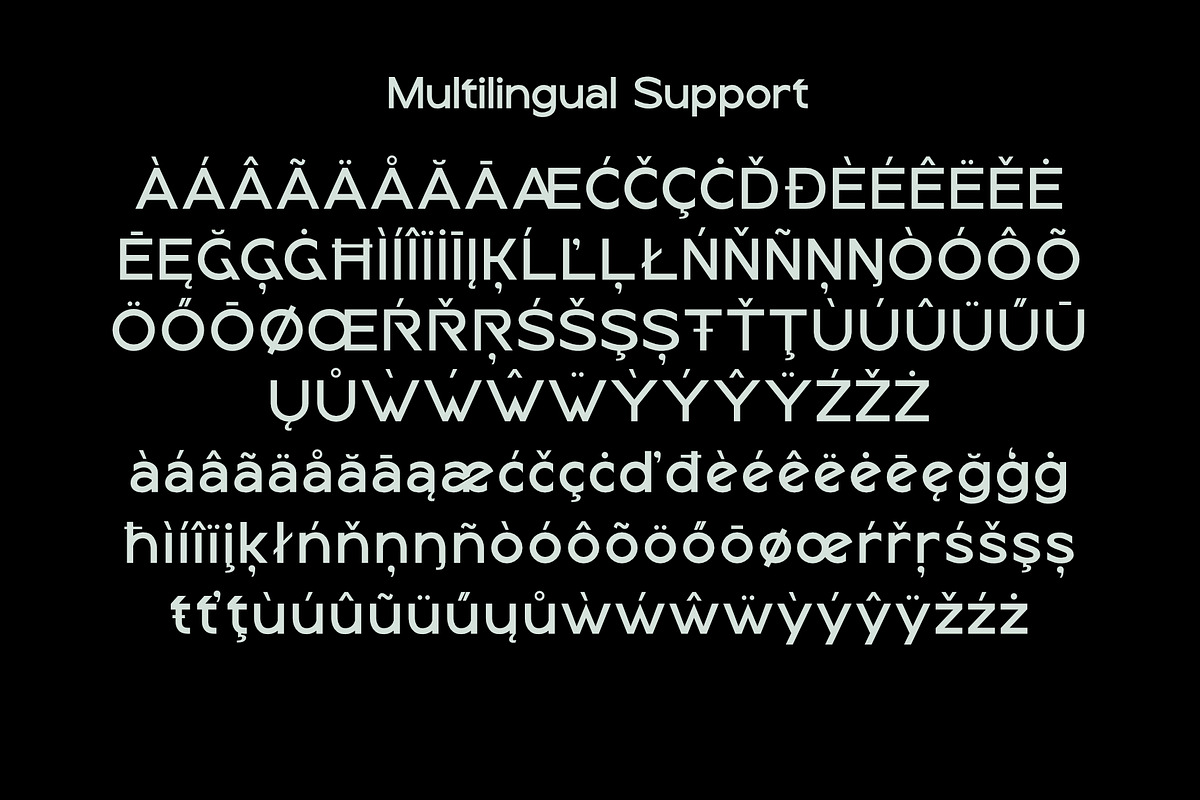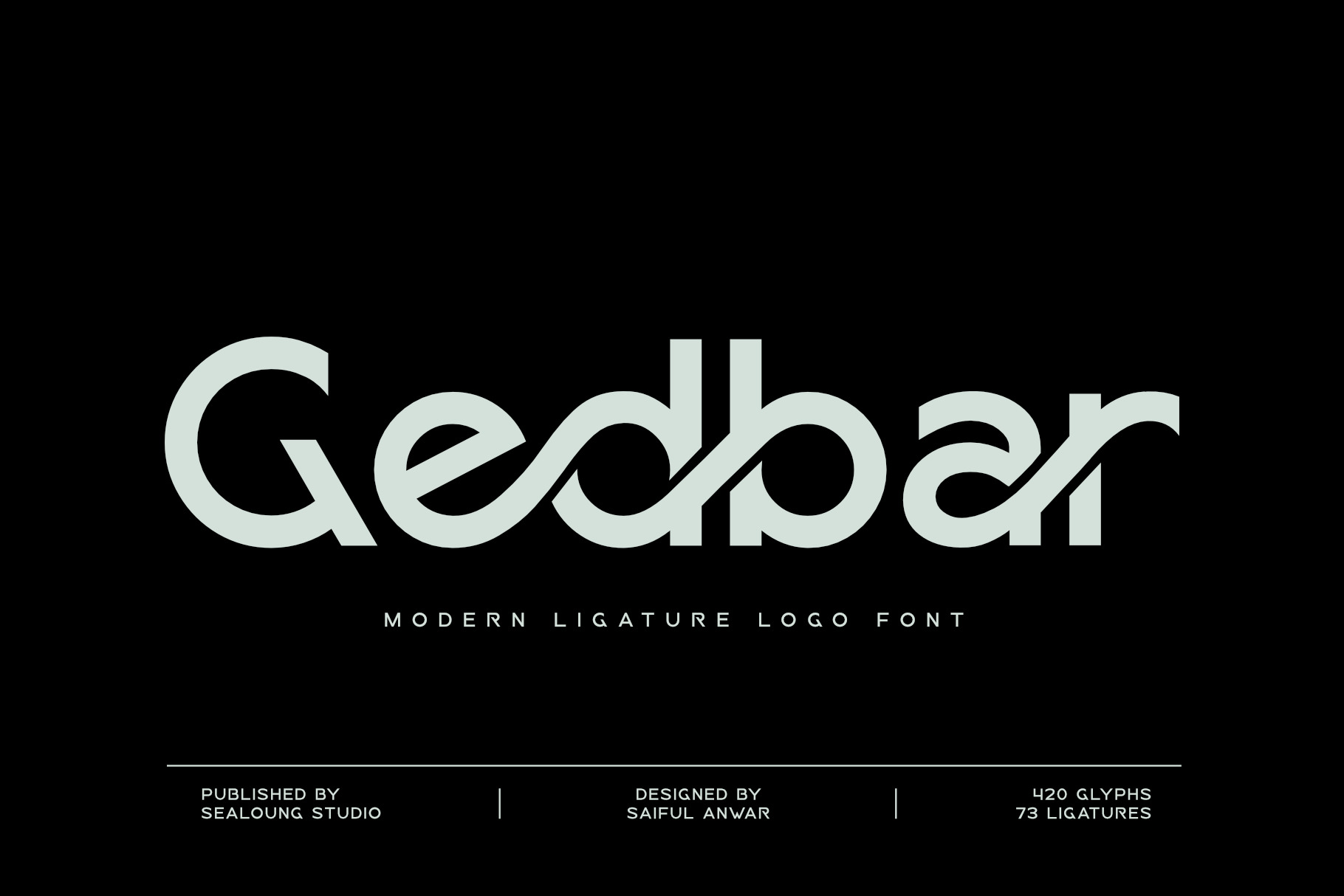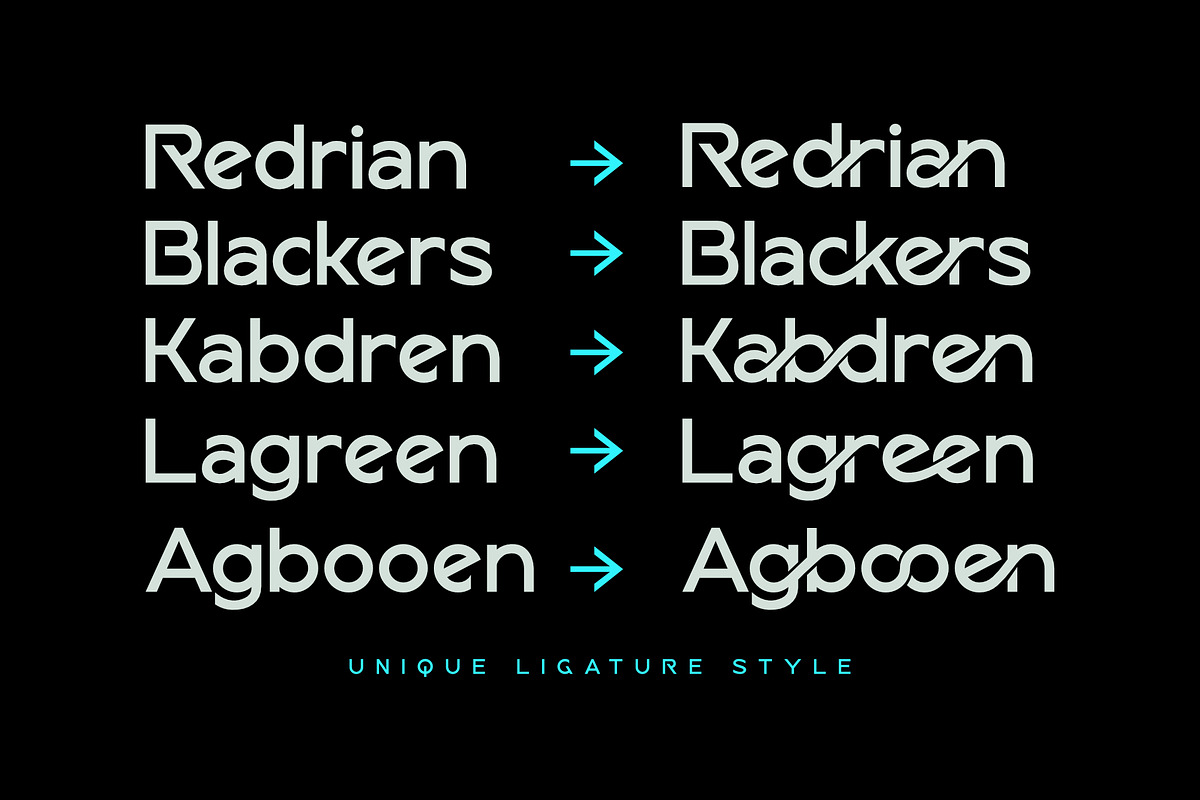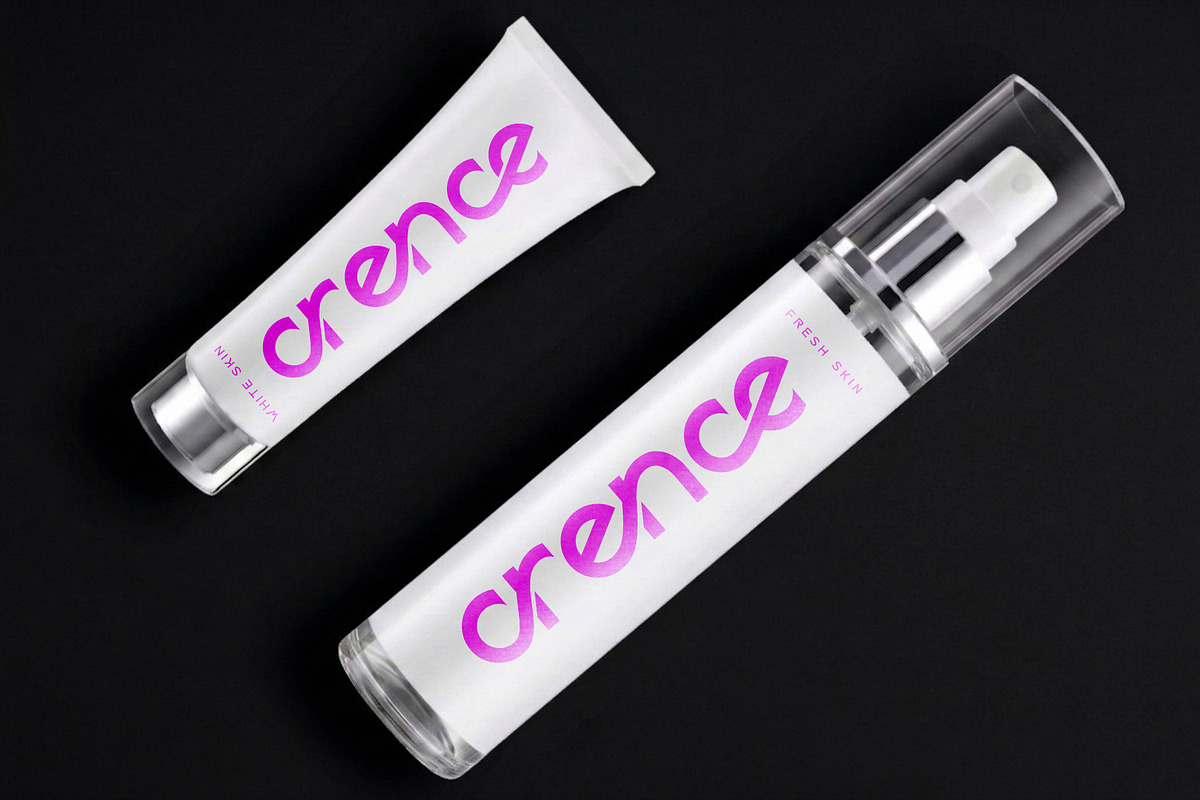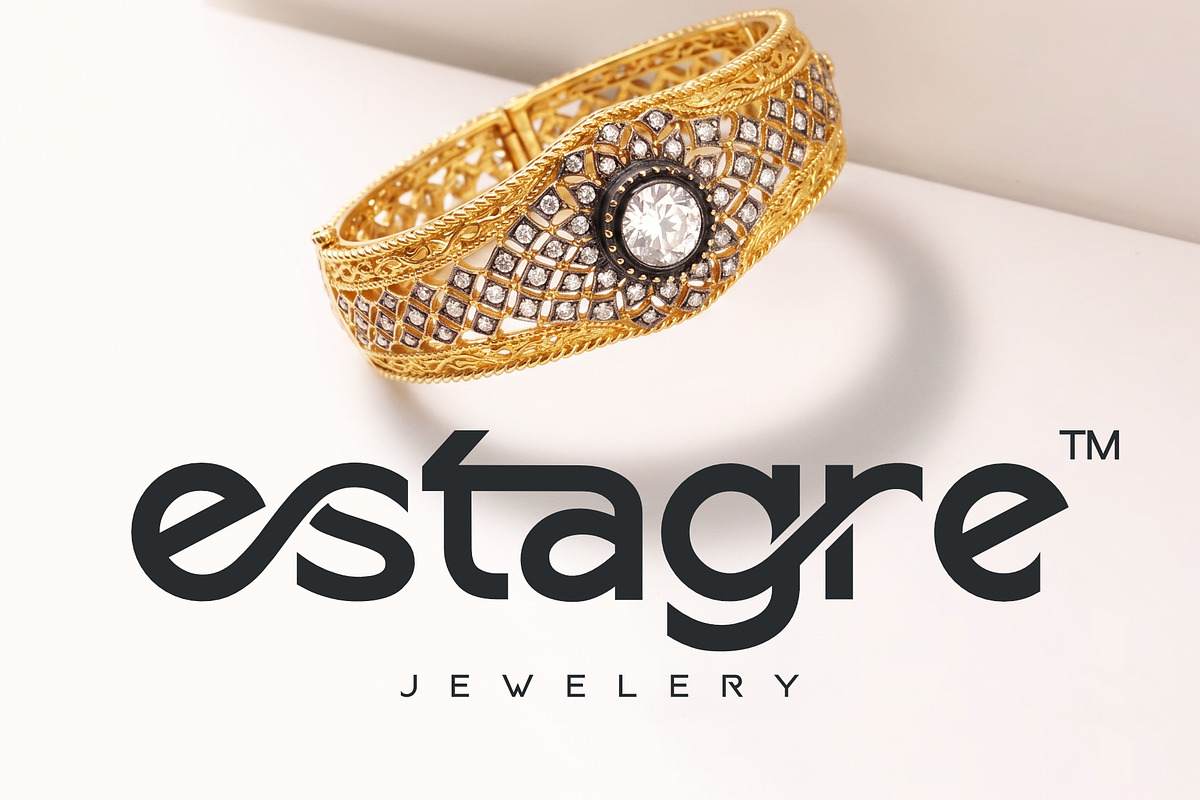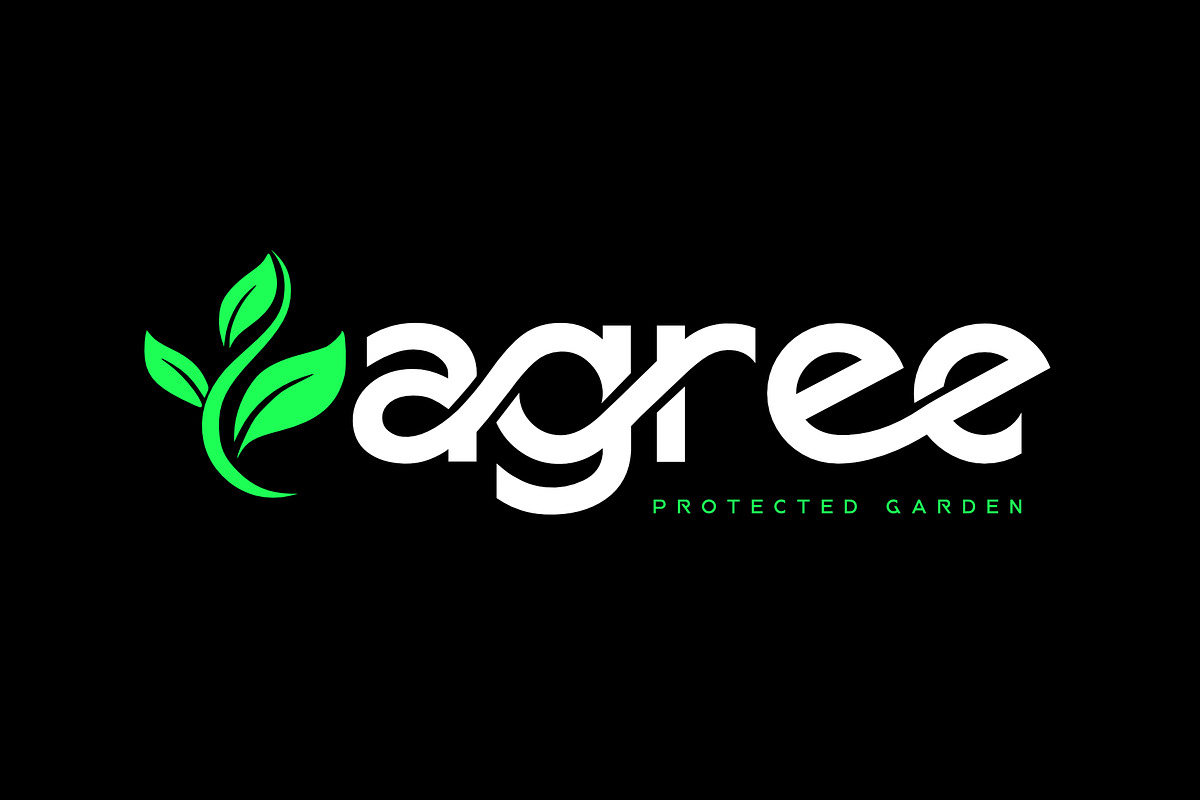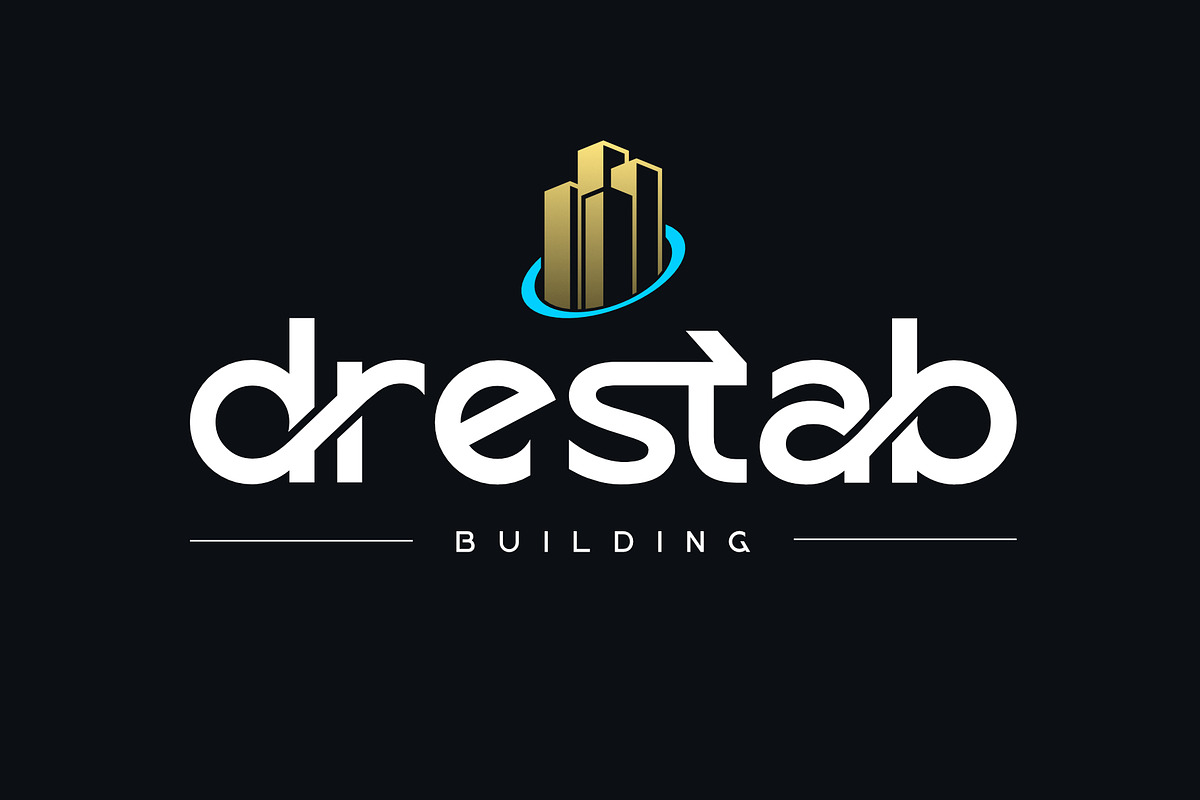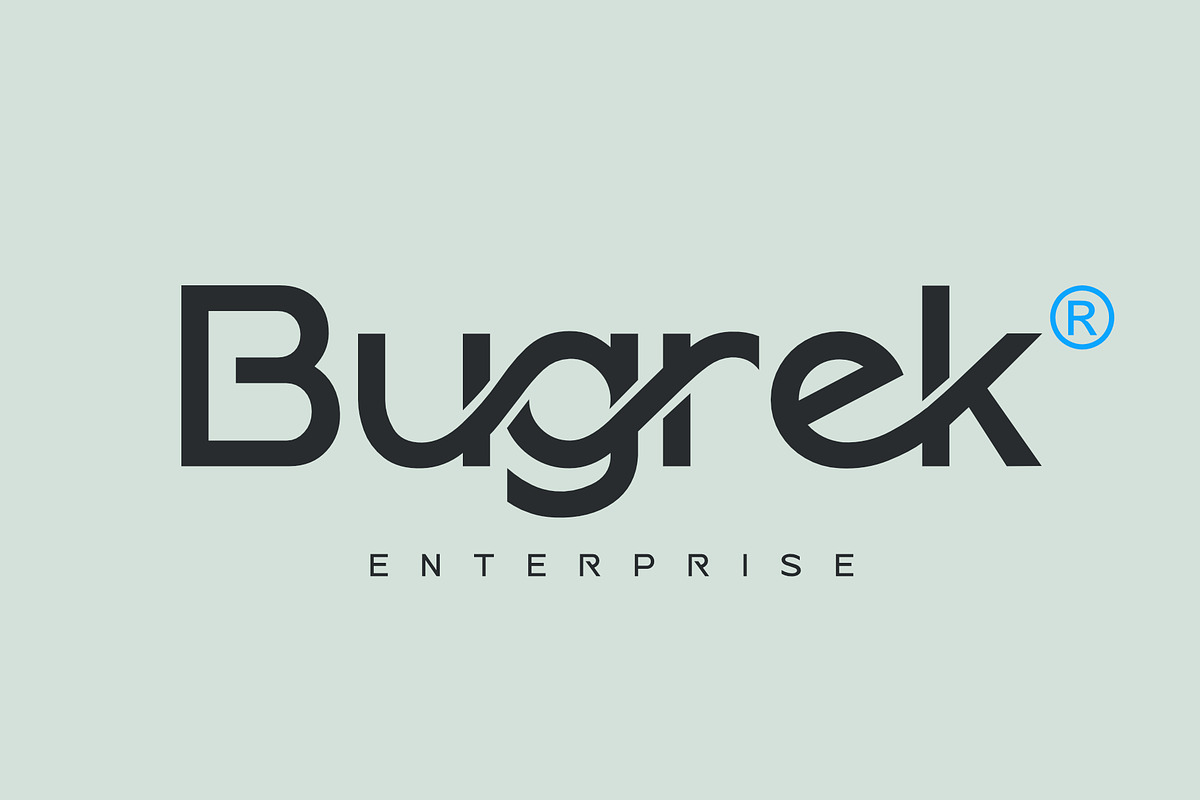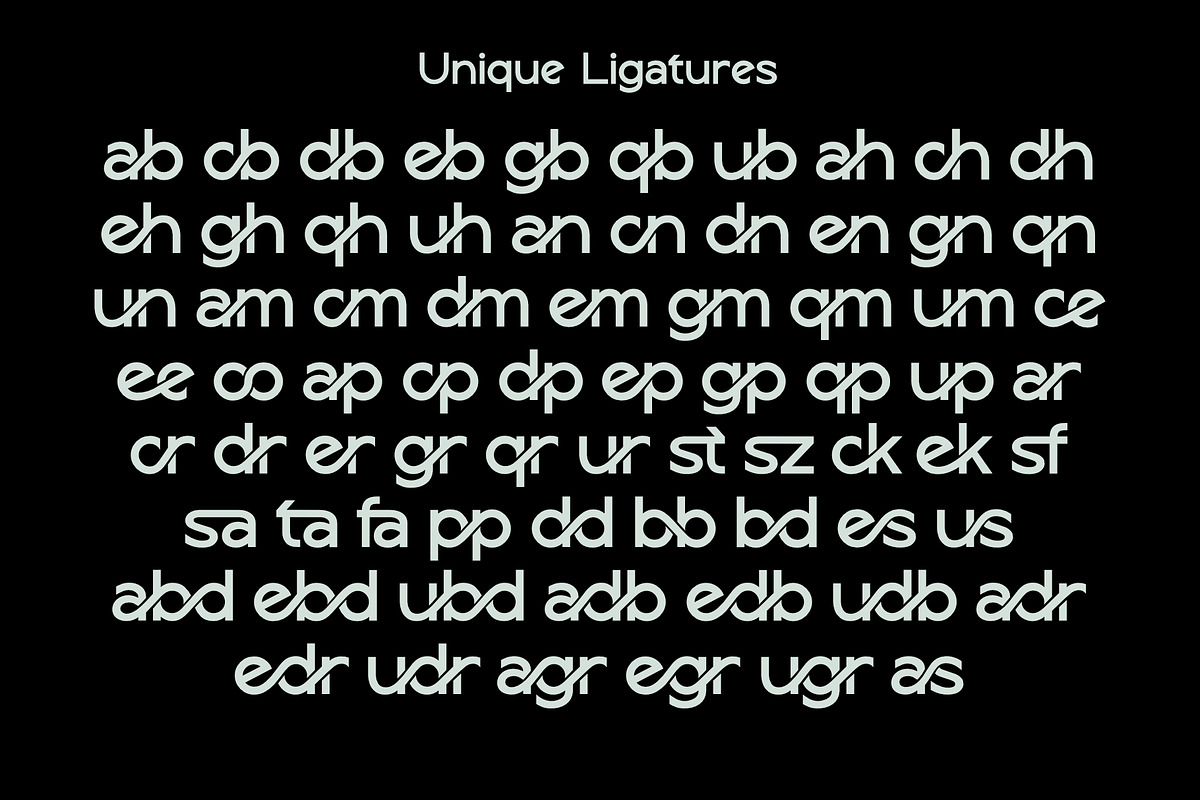
Gedbar - Modern Ligature Logo Font
Introducing Gedbar, a striking and modern typeface crafted to strengthen your brand identity. With its clean structure and bold personality, Gedbar is built to create visuals that instantly capture attention.
Gedbar Font Features:
Strong Visual Presence Designed to deliver impactful and memorable branding that stands out effortlessly.
Refined Modern Look A balanced blend of contemporary design and subtle artistic detail, giving your work a clean and polished appearance.
Flexible Usage Perfect for logos, headlines, posters, and various creative design projects.
Distinctive Ligatures Enriched with unique ligature combinations that add character and originality to your typography.
Clean and Stylish Design Minimal yet expressive, offering a sleek visual appeal with a modern edge.
Gedbar is designed to bring clarity, strength, and style into every project. Whether used for branding or creative layouts, it delivers a bold and refined impression that enhances your overall design.